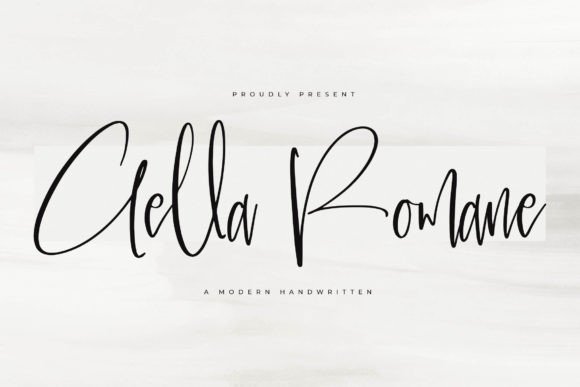
Gella Romane Font: Elevate Your Designs with a Touch of Luxury
In the world of typography, fonts play a crucial role in conveying the tone and personality of a brand or design. For those seeking to add a touch of luxury and sophistication to their projects, the Gella Romane Font is an excellent choice. This modern handwritten font, crafted by Letterena, is a stunning script typeface that can elevate a wide range of designs, from logos and branding projects to homeware designs, product packaging, and more.
The Gella Romane Font: A Luxury Script Typeface
Gella Romane is a beautifully designed script font that exudes elegance and refinement. Its modern handwritten style makes it perfect for designers looking to add a personal touch to their work. The font’s luxurious feel is achieved through its intricate details, flowing lines, and sophisticated letterforms. Whether you’re working on a high-end branding project or a creative design endeavor, Gella Romane is sure to impress.
Key Features of Gella Romane Font
- Modern Handwritten Style: Gella Romane boasts a fresh and contemporary handwritten look that sets it apart from traditional script fonts.
- Luxury Script Typeface: The font’s luxurious feel makes it ideal for high-end designs, such as luxury branding, packaging, and advertising.
- Versatile: Gella Romane can be used for a wide range of projects, including logos, branding projects, homeware designs, product packaging, and more.
- Elegant Letterforms: The font’s intricate details and flowing lines create a sophisticated and refined look.
Uses of Gella Romane Font
Gella Romane’s versatility makes it suitable for a wide range of design projects. Here are some examples of how you can use this luxury script font:
- Logos and Branding Projects: Create a lasting impression with a custom logo or branding project that showcases your brand’s personality and values.
- Homeware Designs: Add a touch of elegance to your homeware designs, such as kitchenware, textiles, and decorative items.
- Product Packaging: Elevate your product packaging with a luxurious and sophisticated design that stands out on store shelves.
- Mugs and Apparel: Create unique and stylish designs for mugs, t-shirts, and other apparel.
- Posters and Quotes: Use Gella Romane to create eye-catching posters and quotes that convey your message in style.
- Book Covers and Invitations: Add a touch of luxury to your book covers, invitations, and greeting cards.
Why Choose Gella Romane Font?
With so many fonts available, why choose Gella Romane? Here are a few reasons why this luxury script font stands out:
- Unique and Exclusive: Gella Romane’s modern handwritten style sets it apart from traditional script fonts.
- High-Quality Design: The font’s intricate details and flowing lines create a sophisticated and refined look.
- Versatile: Gella Romane can be used for a wide range of design projects, making it a valuable addition to your font library.
- Elegant and Sophisticated: The font’s luxurious feel makes it perfect for high-end designs and luxury branding projects.
Tips for Using Gella Romane Font
To get the most out of Gella Romane, here are a few tips to keep in mind:
- Use it Sparingly: Gella Romane’s luxurious feel can be overwhelming if overused. Use it sparingly to create a lasting impression.
- Pair it with Other Fonts: Experiment with pairing Gella Romane with other fonts to create a unique and visually appealing design.
- Adjust Font Size and Color: Adjust the font size and color to create a design that is both elegant and effective.
- Experiment with Different Effects: Try adding different effects, such as textures or gradients, to give your design an extra boost.
In conclusion, Gella Romane Font is a luxury script typeface that can elevate a wide range of design projects. Its modern handwritten style, intricate details, and sophisticated letterforms make it perfect for high-end designs, luxury branding projects, and creative endeavors. With its versatility, elegance, and sophistication, Gella Romane is an excellent addition to any font library.